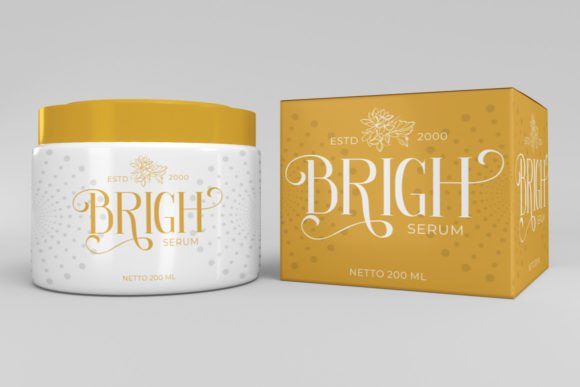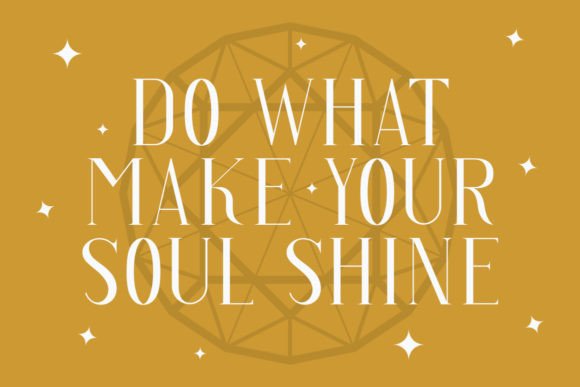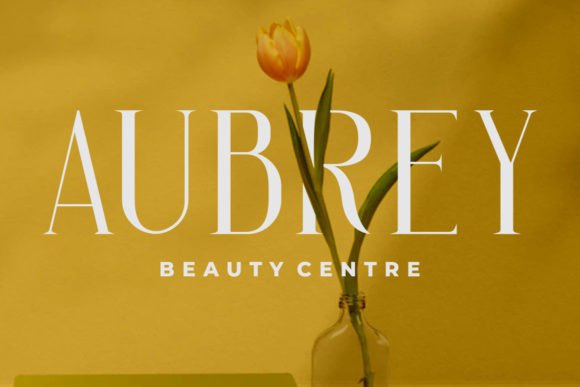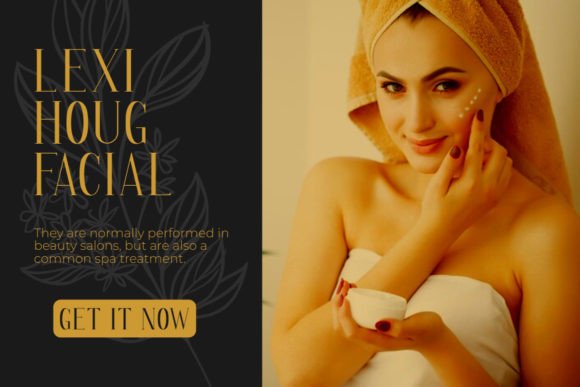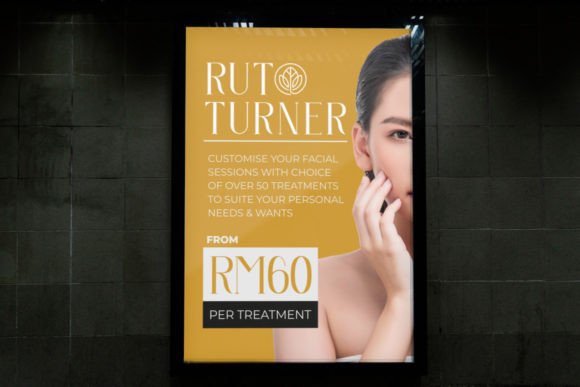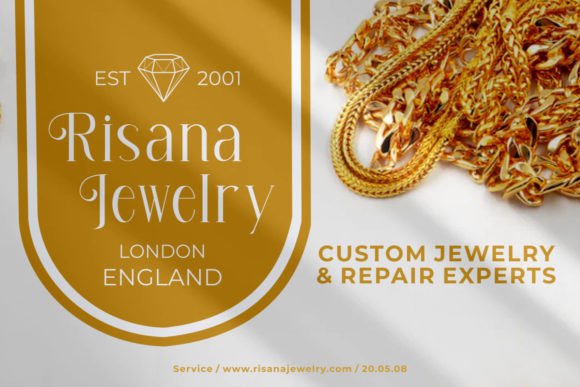
Introducing Arash Font: A Modern Serif Font Inspired by Vintage Typography
In the world of typography, fonts play a crucial role in conveying messages, expressing emotions, and creating visual identities. For designers and crafters, finding the perfect font can be a daunting task, especially when looking for something unique and versatile. That’s where Arash Font comes in – a modern serif font that combines the best of vintage typography with modern style.
The Inspiration Behind Arash Font
Arash Font is inspired by the classic posters and lettering of the past, with a modern twist. The font’s creator aimed to bring back the elegance and sophistication of traditional typography while infusing it with a contemporary feel. The result is a font that is both nostalgic and fresh, perfect for designers looking to add a touch of vintage charm to their work.
Key Features of Arash Font
Arash Font boasts an impressive range of features that make it an ideal choice for various design projects. Some of its key features include:
• Open Type Feature: Arash Font comes with an open type feature that offers a wide range of alternates and end swashes. This feature allows designers to create unique letter combinations and add a personal touch to their work.
• Modern Serif Design: Arash Font features a modern serif design that is both elegant and legible. The font’s serifs are carefully crafted to add a touch of sophistication to any design.
• Versatility: Arash Font is incredibly versatile and can be used for a wide range of design projects, including logotypes, headings, covers, posters, logos, quotes, product packaging, headers, merchandise, social media, and greeting cards.
Use Cases for Arash Font
Arash Font is perfect for designers and crafters looking to add a touch of elegance and sophistication to their work. Here are some use cases where Arash Font truly shines:
• Logotypes and Branding: Arash Font is ideal for creating logotypes and branding materials that require a unique and memorable font.
• Posters and Flyers: The font’s vintage inspiration and modern style make it perfect for creating eye-catching posters and flyers.
• Product Packaging: Arash Font can add a touch of luxury and sophistication to product packaging, making it perfect for high-end brands.
• Social Media and Merchandise: The font’s versatility makes it suitable for social media graphics, merchandise, and other digital applications.
Why Choose Arash Font?
With so many fonts available, why choose Arash Font? Here are a few reasons why designers and crafters love Arash Font:
• Unique Design: Arash Font offers a unique design that sets it apart from other serif fonts.
• High Legibility: The font’s modern design ensures high legibility, making it perfect for body text and headings.
• Customization Options: The open type feature and range of alternates and end swashes offer endless customization options.
Arash Font is a modern serif font that is sure to impress designers and crafters alike. Its unique blend of vintage inspiration and modern style makes it perfect for a wide range of design projects. With its open type feature, high legibility, and customization options, Arash Font is an excellent choice for anyone looking to add a touch of elegance and sophistication to their work.